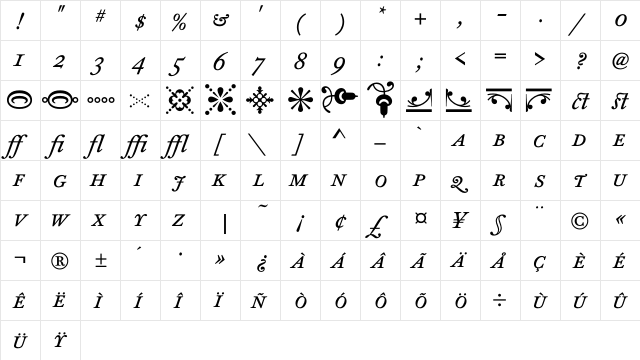
FoundryWilsonExpert Italic
Design Context for FoundryWilsonExpert Typeface
FoundryWilsonExpert offers clean, dependable letterforms without strong stylistic allegiance, making it a practical choice for designers who need flexibility. Its italic angle brings a sense of urgency and motion to the letterforms.
Pro Tip: Use FoundryWilsonExpert for emphasis, pull quotes, and subheadings where its slanted energy can add rhythm to the layout.